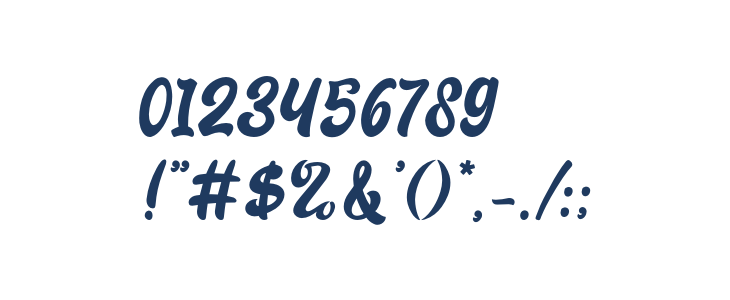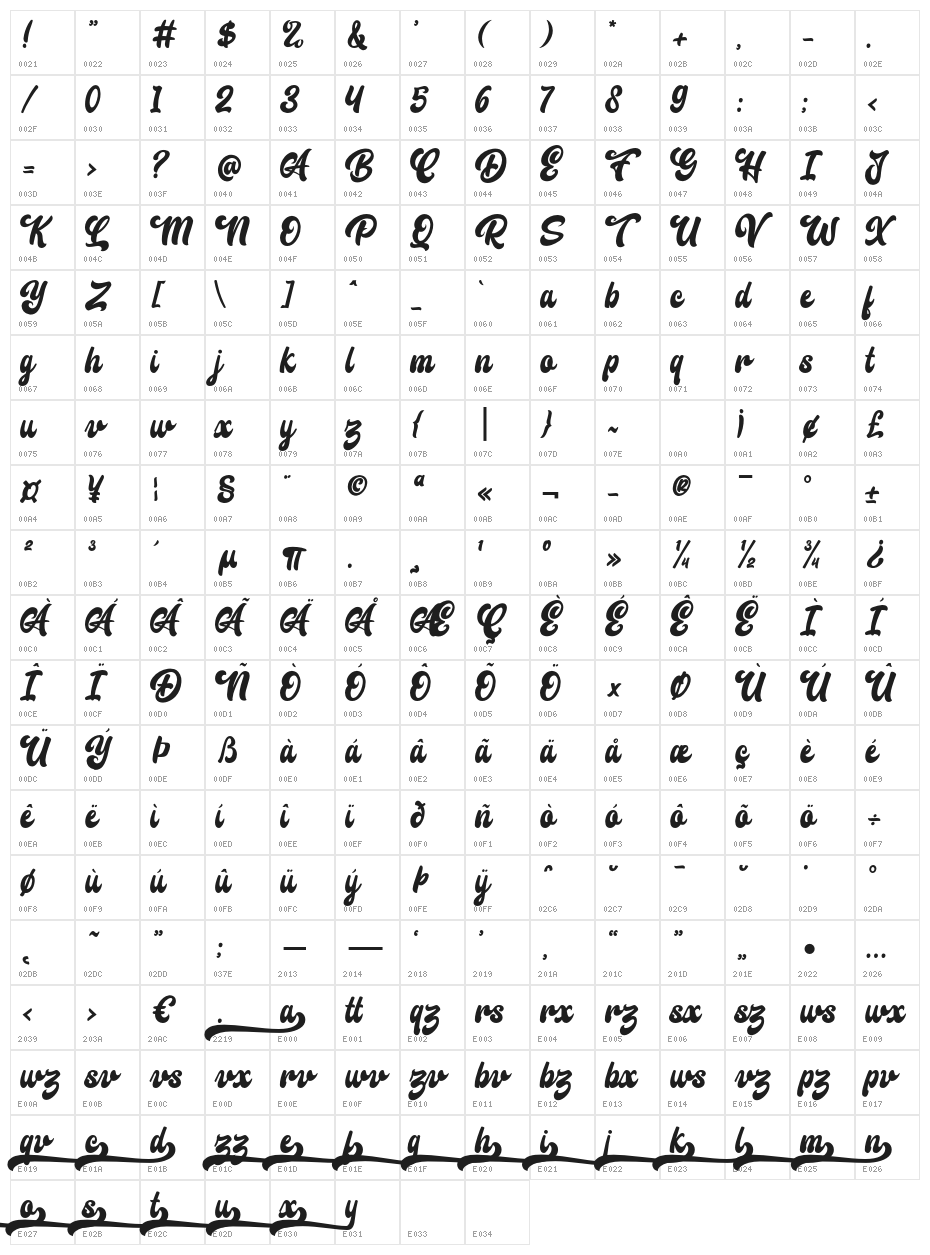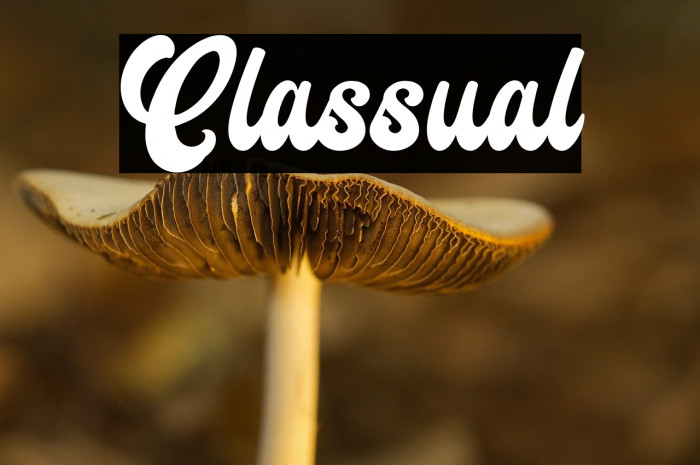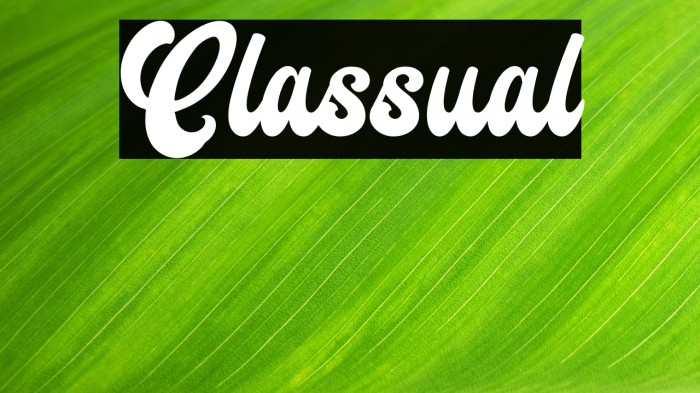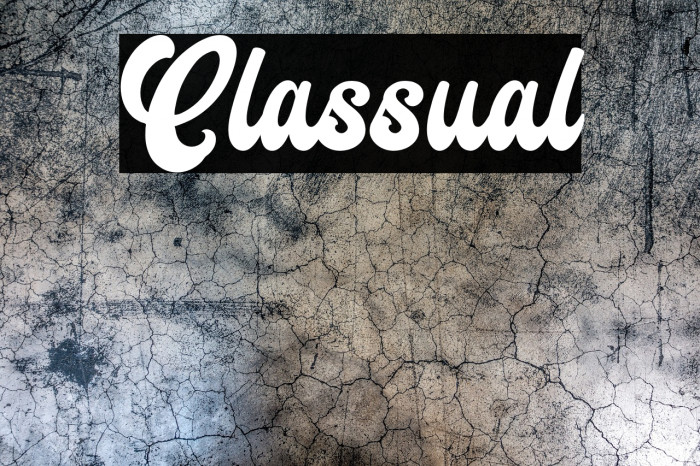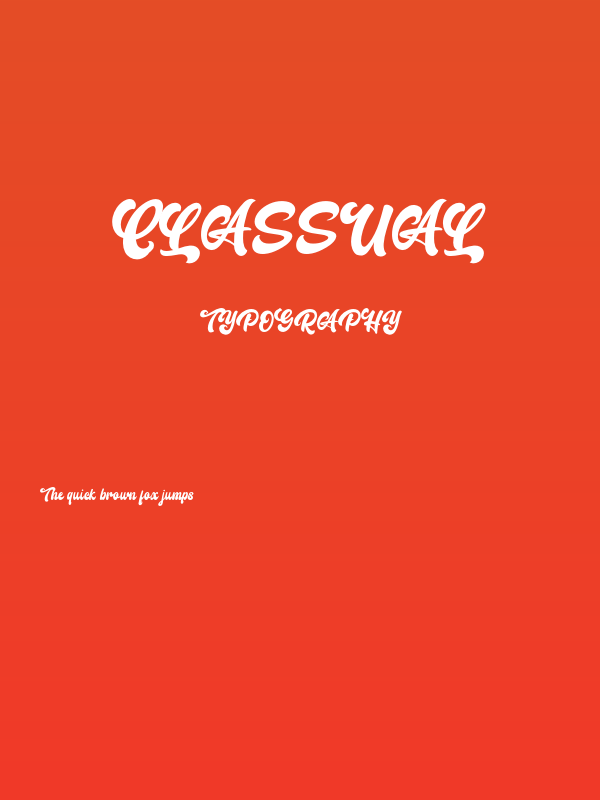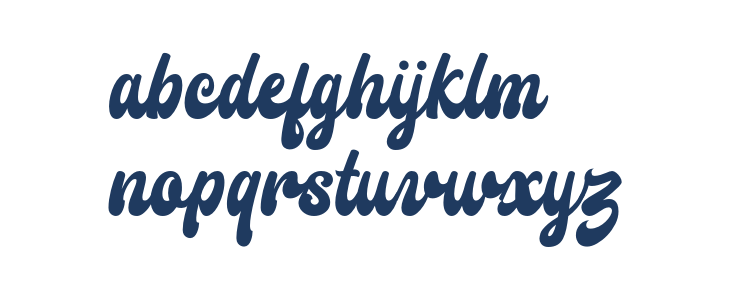
Classual Font
Classual Description
This font features a bold, flowing script style that exudes elegance and sophistication. The characters are intricately designed with smooth, rounded edges and a consistent stroke width, creating a harmonious and fluid appearance. The uppercase letters are particularly ornate, with decorative flourishes that add a touch of flair. The lowercase letters maintain a cohesive look, complementing the uppercase with their graceful curves. Numbers and special characters are equally stylized, ensuring a uniform aesthetic throughout. This font is ideal for projects that require a touch of class and creativity, such as invitations, branding, and decorative signage.
| Use Case | Logos, Headlines, Invitations |
| Proposed Projects | Ideal for invitations, branding, decorative signage, and creative projects. |